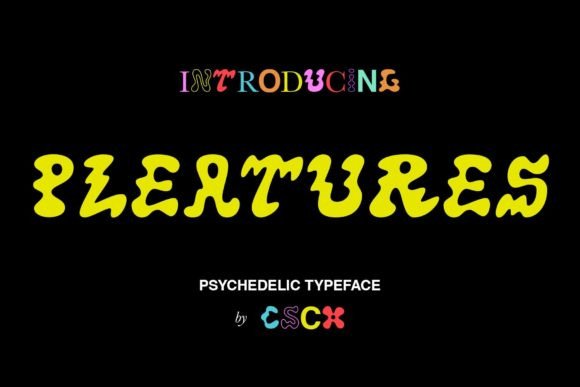
Embark on a playful adventure with Pleasures Font, a captivating display font family that will transport your designs to a world of vibrant imagination.
Picture this: a font that radiates pure delight with its whimsical and enchanting aura. Each character dances and twirls across the page, carrying with it a sense of joy and wonder. Welcome to the world of Pleasures Font - a captivating creation from the talented minds at Craft Supply Co.
Dive into the enchanting world of Pleasures Font - a font family that will ignite your creativity and spark your imagination. With its psychedelic and groovy vibe, this font transforms your designs into mesmerizing masterpieces, guaranteed to leave a lasting impression.
Envision your kids' birthday party invitations bursting with color and excitement, adorned with the playful charm of Pleasures Font. The vibrant hues and cheerful characters will set the tone for a celebration that echoes the carefree laughter and joyous spirit of childhood.
Step into a whimsical realm where creativity knows no bounds. Whether you're crafting invitations, posters, greeting cards, or embarking on digital adventures, Pleasures Font becomes your trusty companion, helping you unleash your artistic potential.
Its versatility extends beyond the realm of birthday celebrations. Let Pleasures Font elevate your brand's marketing materials, adding a touch of playful sophistication to your logos, brochures, and social media posts. Create eye-catching packaging designs that capture the attention of your customers and leave them eagerly anticipating the wonders hidden within.
With Pleasures Font at your fingertips, you hold the key to unlocking a world of imagination and endless creative possibilities. Its boundless charm and captivating aura invite you to embrace the joy of self-expression and create designs that resonate with your unique vision.